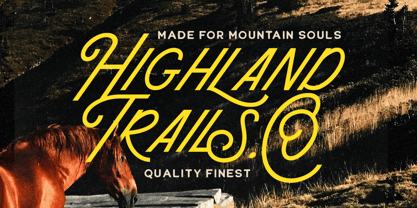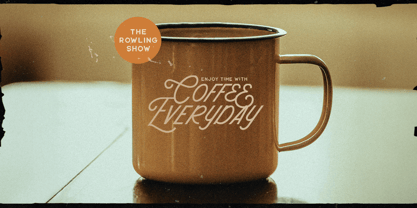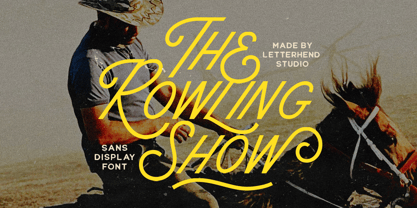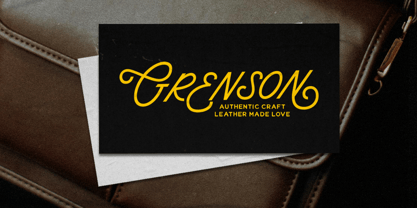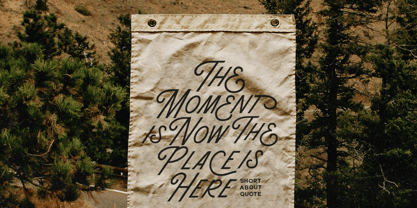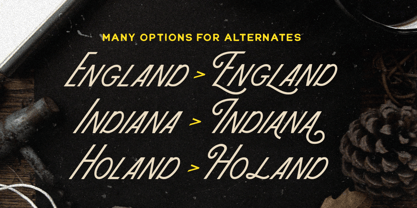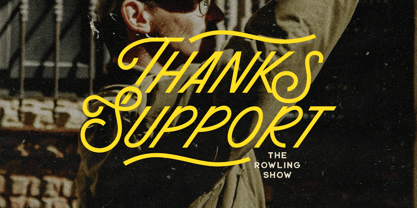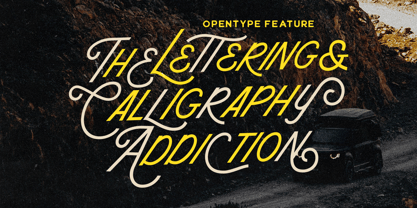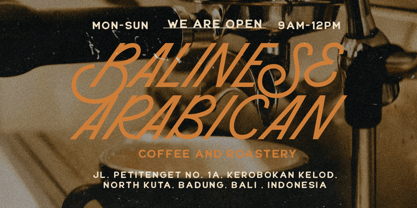
The Rowling Show
The The Rowling Show Font Family was designed by Hendry Juanda and published by Letterhend. The Rowling Show contains 1 styles. More about this family
The Rowling Show is a monoline sans display font with a retro western twist, blending clean letterforms with stylish swashes that add movement and flair. Its sharp lines and elegant curves make it perfect for posters, logos, event titles, signage, or branding that wants to feel strong, classic, and full of character. This font carries a showtime vibe—confident, dynamic, and a little dramatic—instantly grabbing attention while keeping a touch of vintage sophistication.
Features :
• Uppercase & lowercase
• Numbers and punctuation
• Alternates & Ligatures
• Multilingual Support